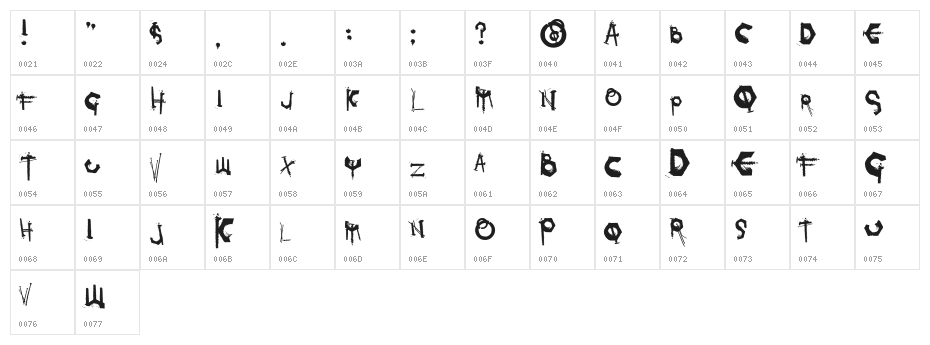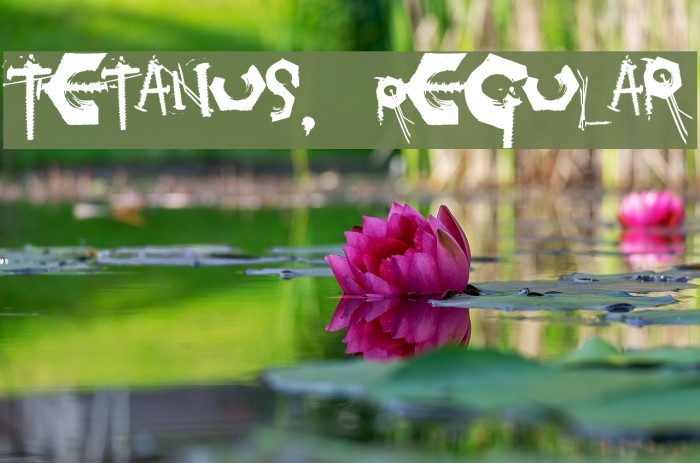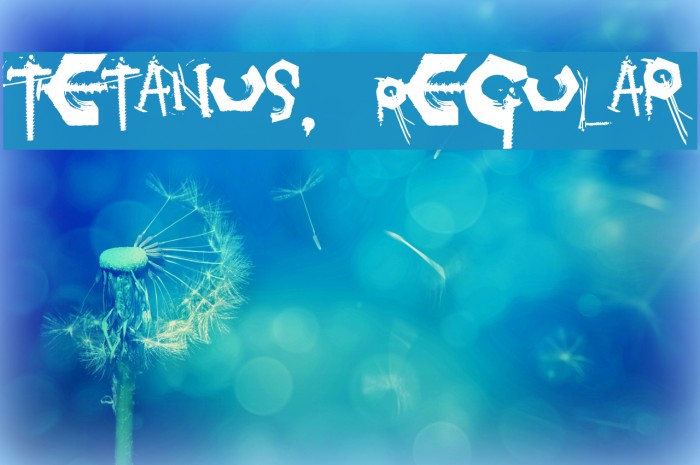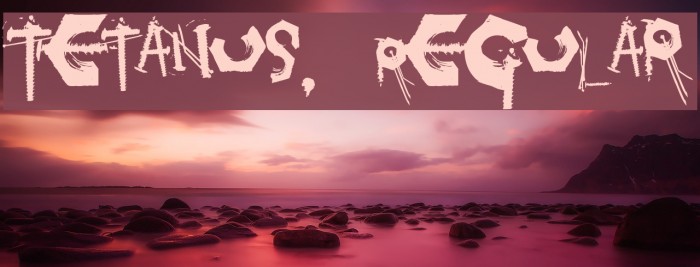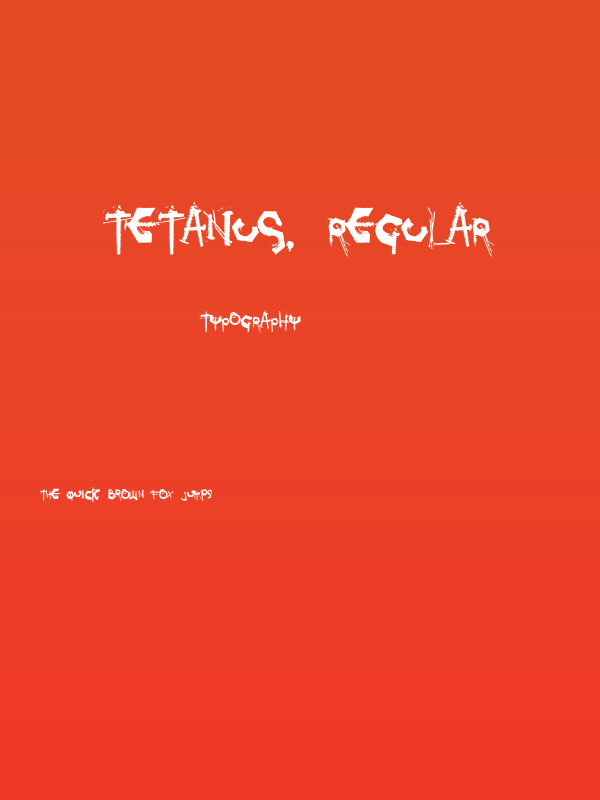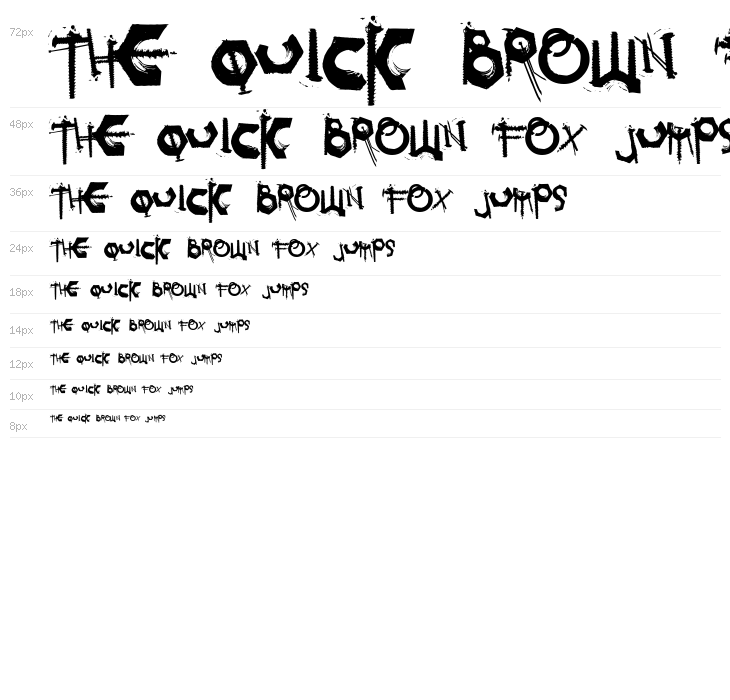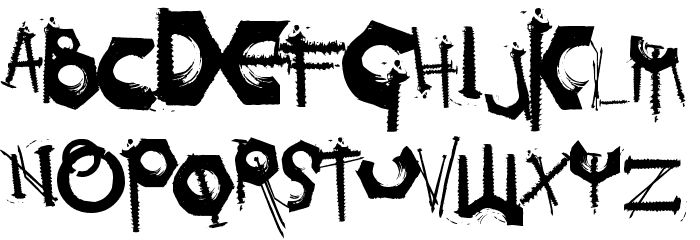
Tetanus, Regular Font
Tetanus, Regular Description
This font features a highly distressed and grungy aesthetic, characterized by jagged edges and irregular strokes that give it a chaotic and edgy appearance. The letters appear as if they have been scratched or eroded, adding a raw and rebellious feel. The uppercase and lowercase letters maintain a consistent style, with each character displaying unique imperfections and rough textures. The font's design is bold and impactful, making it suitable for projects that require a strong visual statement. The special characters and numbers follow the same distressed theme, ensuring a cohesive look across all text elements.
| Overall Style | Grunge, Edgy |
| Proposed Projects | Ideal for music album covers, horror movie posters, street art designs, and edgy branding projects. |